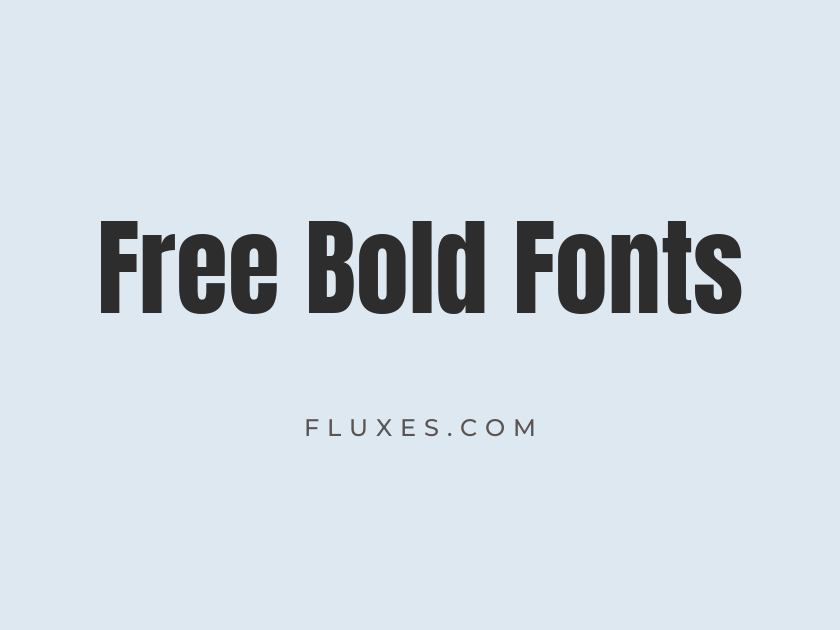
62 Best Free Bold Fonts
Bold fonts do the heavy lifting in design: they grab attention on a poster, anchor a homepage hero, or make a logotype impossible to ignore. Choosing the right one is less about finding “a bold font” than finding the right flavor of boldness, whether that means a black display face built for a single headline, a heavy grotesque that still reads well in a paragraph, or a slab serif with enough weight to hold a page together. Every option here is free to download and use from Google Fonts, so you can test them live before committing to one for a logo, poster, or bold-forward brand identity.
1. Anton
Anton is about as loud as a Google Font gets without resorting to novelty. It was built for tabloid-style headlines and stadium signage, and it still does that job better than almost anything else in the library. Keep it to short bursts of text; at paragraph length its density turns into a wall.
2. Bebas Neue
Only one weight exists, but that weight is doing the work of ten. Bebas Neue’s tall, all-caps condensed letterforms have become a default for fitness brands, event posters, and app UI badges precisely because they feel bold without shouting in the same way a heavy black face does.
3. Archivo Black
Archivo Black is a workhorse grotesque pushed to its heaviest setting, sturdy rather than stylish. It pairs cleanly with a lighter Archivo weight for body copy, which makes it a favorite for editorial sites that want one type family to cover a whole page.
4. Alfa Slab One
Thick, almost architectural serifs give Alfa Slab One a circus-poster and old-timey-sign energy. It works best as a display face for badges, labels, or short titles rather than anything meant to be read quickly.
5. Titan One
Rounded, inflated, and cheerful, Titan One belongs in game logos, kids’ branding, and anything that wants boldness without a hint of seriousness.
6. Luckiest Guy
Luckiest Guy borrows its swagger from hand-painted comic lettering and vintage cartoon logos. It is unapologetically informal, so save it for playful headlines rather than anything corporate.
7. Righteous
There’s a nostalgic, seventies-record-sleeve quality to Righteous, with rounded terminals and consistent stroke weight that read as bold without feeling aggressive. It suits music branding, streaming graphics, and anything chasing a retro-futuristic mood.
8. Fugaz One
Fugaz One leans into sharp, angular cuts that suggest speed and motion, which is why it turns up so often in sports logos and gaming graphics. Its heaviness comes from confident geometry rather than sheer stroke width.
9. Bungee
Bungee was designed with street signage and urban wayfinding in mind, and it carries that chunky, high-contrast personality into any headline. It is loud by design, so a single word or short phrase usually works better than a long line.
10. Bungee Inline
Take the same street-sign confidence as Bungee and add a hollow inline channel, and you get a display face with built-in texture and depth. It photographs beautifully in flat colors on posters and merch where a plain black weight would feel too flat.
11. Bungee Shade
The shadow effect baked into Bungee Shade gives it a dimensional, screen-printed feel straight out of a vintage arcade marquee. It is a specialty face, best reserved for a logotype or hero word rather than running text.
12. Black Ops One
Stenciled gaps and a rigid military bearing make Black Ops One an obvious pick for gaming, tactical, and action-adventure branding. Its personality is so specific that it rarely suits anything outside that lane.
13. Bowlby One
Bowlby One puffs its letterforms out to near-bursting, which gives it a friendly, balloon-like heaviness rather than an aggressive one. It reads well even in all caps at small sizes, unlike many super-bold display faces that turn muddy when shrunk down.
14. Squada One
Squada One keeps its rounded, slightly condensed letterforms simple enough to work as a logotype on its own, no pairing required. It sits comfortably between playful and professional, which makes it more versatile than most novelty display faces.
15. Modak
Rooted in Devanagari-inspired proportions, Modak brings an unusually plump, handcrafted heaviness to Latin type. It stands out in a crowd of grotesque black weights precisely because its warmth feels different from the usual industrial boldness.
16. Passion One
ROUNDED BOLD TYPE FOR FRIENDLY HEADLINES
At its heaviest weight, Passion One turns soft and rounded rather than sharp, giving it a friendly, approachable kind of boldness. It suits community brands, blogs, and casual product marketing more than anything trying to look serious.
17. Fjalla One
NARROW BOLD CAPS FOR CLEAN HEADLINES
Fjalla One is deceptively simple: narrow proportions, confident weight, and no decorative flourishes. It reads as bold without shouting, which makes it a reliable choice for section headers on content-heavy websites.
18. Oswald
CONDENSED BOLD HEADLINES, NEWSPAPER STYLE
Descended from classic condensed grotesques used in early twentieth-century advertising, Oswald’s bold weight keeps that newspaper-headline authority while staying legible on screens. It has become something close to a default for blog titles and WordPress themes for good reason.
19. Yanone Kaffeesatz
TALL, NARROW BOLD FOR EFFICIENT HEADLINES
Yanone Kaffeesatz
Its tall x-height and narrow width let Yanone Kaffeesatz pack a bold statement into a tight horizontal space, which is handy for sidebars, tags, and navigation labels.
20. Khand
SQUARE, STURDY BOLD FOR STRONG BRANDS
Khand
Khand’s squared-off curves and dense proportions give it a sturdy, almost architectural presence at bold weight. It was designed alongside a matching Devanagari companion, which makes it a solid pick for multilingual branding projects.
21. Teko
TALL CONDENSED BOLD FOR SPORTS SCOREBOARDS
Teko’s extreme vertical proportions make it feel built for scoreboards and stat displays, though it works just as well for any headline that needs height without eating horizontal space.
22. Rajdhani
TECH-FORWARD BOLD FOR DASHBOARDS AND UI
There’s a technical, slightly futuristic edge to Rajdhani that suits dashboards, software branding, and gaming UI. Bold weight sharpens that effect further, giving numerals and labels a confident, engineered look.
23. Barlow Condensed
INDUSTRIAL BOLD TYPE FOR SIGNAGE AND UI
Barlow Condensed borrows its stripped-down, low-contrast structure from California highway signage, and at its heaviest weight it becomes a genuinely useful display face rather than just a body-copy companion.
24. Cabin Condensed
FRIENDLY CONDENSED BOLD FOR TIGHT SPACES
Cabin Condensed
Slightly warmer than most condensed grotesques, Cabin Condensed’s bold cut still fits a lot of confidence into narrow columns, buttons, and mobile navigation bars.
25. Poppins
GEOMETRIC BOLD LETTERING FOR MODERN BRANDS
Built on true geometric circles, Poppins keeps its bold weight clean and even rather than heavy-handed. It has become nearly ubiquitous in startup branding and app interfaces, so consider it if you want a bold sans that feels current without being unfamiliar.
26. Montserrat
URBAN GEOMETRIC BOLD FOR STRONG STATEMENTS
Montserrat’s black weight is dense and confident, drawing on the geometric sans lettering found on old buildings in Buenos Aires. It pairs naturally with its own lighter weights for a cohesive type system across a whole site.
27. Raleway
ELEGANT BOLD TYPE FOR REFINED BRANDS
Raleway is usually known for its thin, elegant default weight, which makes its black cut a pleasant surprise: still refined in its proportions, just filled out with real heft for headlines.
28. Work Sans
OPTIMIZED BOLD TYPE FOR SCREENS AND UI
Designed specifically with screen legibility in mind, Work Sans holds up at its heaviest weight without the letterforms clogging together, which is a real risk with many black-weight sans faces at small sizes.
29. Inter
INTERFACE-GRADE BOLD TYPE FOR PRODUCT UI
Inter was engineered for user interfaces, and its bold and black weights carry that same obsessive attention to spacing and legibility. It has become a default choice for product teams that need a bold sans that never gets in the way of usability.
30. Rubik
ROUNDED BOLD LETTERS WITH FRIENDLY CORNERS
Rubik’s slightly rounded corners soften its black weight just enough to keep it approachable rather than harsh, a useful quality for consumer brands that want boldness without aggression.
31. Nunito
SOFT, ROUNDED BOLD TYPE FOR WARM BRANDS
Nunito’s rounded terminals give its black weight a gentle, huggable quality rare among heavy sans faces. Expect it in wellness, education, and family-facing brands more than in anything trying to look tough.
32. Exo 2
TECH-DRIVEN BOLD TYPE FOR SCI-FI THEMES
Exo 2 carries a slightly futuristic edge into its heaviest weight, with subtle geometric quirks in letters like the lowercase a. It suits gaming, technology, and sci-fi-adjacent branding particularly well.
33. Saira
VERSATILE BOLD TYPE ACROSS FIVE WIDTHS
Saira
Saira’s real strength is its width range, from ultra-condensed to expanded, all sharing the same bold DNA. That flexibility makes it easy to build an entire bold type system, from tight mobile headers to expansive desktop banners, from one family.
34. Kanit
LOOP-FREE BOLD TYPE WITH A MODERN EDGE
Kanit
Kanit trims its geometric letterforms down to essentials, and at black weight it reads confidently modern without tipping into novelty. Its Thai companion glyphs also make it a smart pick for bilingual branding work.
35. Prompt
LOOPED BOLD LETTERING FOR CONTEMPORARY BRANDS
Prompt
Similar in spirit to Kanit but slightly warmer in its curves, Prompt’s black weight suits app interfaces and marketing sites that want a bold sans without a strictly corporate feel.
36. Sora
ROUNDED BOLD TYPE BUILT FOR SCREENS
Sora was drawn with rounded stroke terminations that keep its bold weight from feeling clinical, making it a favorite for SaaS landing pages and dashboards that want a bold, friendly headline face.
37. Manrope
SHARP, MODERN BOLD FOR TECH BRANDING
Manrope’s bold weight keeps unusually tight letter-spacing, giving headlines a compact, confident density that works well in narrow layouts and mobile-first designs.
38. Space Grotesk
QUIRKY BOLD TYPE WITH MONOSPACED ROOTS
Adapted from a monospaced source, Space Grotesk keeps a few quirky proportions even at bold weight, like the slightly squared bowls. It fits tech, developer, and product brands that want boldness with a bit of character rather than pure neutrality.
39. DM Sans
LOW-CONTRAST BOLD TYPE FOR CLEAN LAYOUTS
DM Sans stays low-contrast and geometric even at its heaviest weight, which keeps headlines feeling calm and organized rather than shouty. It pairs naturally with its own lighter weights for body text, so the whole page can share one family.
40. Lexend
READABILITY-FOCUSED BOLD FOR HEADLINES
Lexend
Lexend was developed with reading research behind its proportions, and that legibility focus carries into its black weight, which stays clear even in long headline wraps.
41. Karla
GRUNGY-EDGED BOLD TYPE WITH REAL WARMTH
Karla’s bold weight keeps small imperfections in its curves that give it more warmth than a strictly geometric sans, useful for brands that want boldness without feeling manufactured.
42. Chivo
GROTESQUE BOLD TYPE WITH NEWSPAPER ROOTS
Chivo’s black weight has a no-nonsense, editorial quality that suits news sites and long-form publications wanting a bold headline face with real gravity.
43. Overpass
HIGHWAY-INSPIRED BOLD TYPE FOR SIGNAGE
Based on the lettering used on U.S. highway signs, Overpass carries that same clear, no-frills authority into its black weight, making it a natural fit for wayfinding-style graphics and infrastructure branding.
44. Titillium Web
OPEN-SOURCE BOLD TYPE FOR TECH BRANDS
Titillium Web
Born from a university type design project, Titillium Web’s bold weight has a slightly technical, engineered feel that suits software and research-oriented branding.
• Styles: 11 styles (6 weights plus italics)
45. Josefin Sans
ART DECO BOLD TYPE FOR VINTAGE-MODERN LOOKS
Josefin Sans draws on 1920s geometric sans lettering, and its bold weight keeps that art deco elegance while gaining enough weight for headline use. It suits fashion, beauty, and lifestyle brands chasing a vintage-modern balance.
46. Archivo
NEUTRAL BOLD GROTESQUE FOR ANY BRAND
Where Archivo Black is a standalone display face, the full Archivo family’s black weight gives you the same heft with more control, since it shares a system with lighter weights for body text.
47. Barlow
LOW-CONTRAST BOLD TYPE FOR CLEAN INTERFACES
Barlow’s black weight keeps the same rounded, low-contrast structure as its lighter cuts, so a whole interface can lean bold in the headline and restrained in the body without feeling like two different typefaces.
48. Baloo 2
ROUNDED BOLD LETTERING FOR PLAYFUL BRANDS
Baloo 2’s rounded, slightly chunky bold weight has a handmade warmth that suits children’s products, casual apps, and brands that want friendliness over authority.
49. Fredoka
BUBBLY BOLD TYPE FOR CHEERFUL HEADLINES
Fredoka’s rounded, bubble-like forms get even more expressive at bold weight, making it a go-to for playful branding, event graphics, and anything aimed at a younger audience.
50. Dosis
ROUNDED CONDENSED BOLD FOR TIDY HEADLINES
Dosis
Dosis stays narrow and rounded even at its heaviest weight, which makes it useful for compact headline space where a full black grotesque would feel too wide.
51. Ubuntu
HUMANIST BOLD TYPE WITH OPEN-SOURCE ROOTS
Ubuntu
Commissioned for the Ubuntu operating system, this bold weight carries distinctive humanist curves that make it feel friendlier than most engineered sans faces, without losing any authority.
• Language support: Latin, Latin Extended, Cyrillic, Cyrillic Extended, Greek, Greek Extended
52. PT Sans
RELIABLE BOLD TYPE FOR WIDE LANGUAGE SUPPORT
PT Sans was built to serve a huge range of Cyrillic and Latin languages at once, and its bold weight stays legible and unfussy across all of them, a genuinely practical choice for international projects.
53. Abril Fatface
DRAMATIC BOLD SERIF FOR EDITORIAL HEADLINES
High contrast between thick and thin strokes gives Abril Fatface a dramatic, fashion-editorial boldness unlike anything in the sans-serif crowd. Use it large; at small sizes those hairline strokes disappear and the letters lose their shape.
54. Playfair Display
ELEGANT BOLD SERIF FOR LUXURY HEADLINES
At its black weight, Playfair Display keeps its refined, high-contrast serif structure while gaining real headline presence, a rare combination that suits luxury branding, magazines, and wedding-adjacent design work equally well.
55. Bevan
STURDY SLAB SERIF FOR VINTAGE BOLD TYPE
Bevan’s rounded slab serifs give it an old print, almost letterpress quality, heavy enough for posters and packaging that want boldness with a handcrafted history behind it.
56. Merriweather
BOLD SERIF BUILT FOR SCREEN READING
Merriweather was designed specifically to be pleasant on screens, and its black weight keeps that readability while adding genuine headline weight, a useful combination for editorial sites that want serif boldness without sacrificing legibility.
57. Lora
WARM BOLD SERIF FOR LONG-FORM HEADLINES
Lora’s bold weight keeps its calligraphic roots visible in the curves, giving headlines a warmer, more literary boldness than a typical grotesque black weight.
58. Roboto Slab
GEOMETRIC SLAB SERIF FOR MODERN BOLD TYPE
Built on Roboto’s geometric skeleton, Roboto Slab’s bold weight brings slab-serif weight to a thoroughly modern letterform, useful for brands that want a serif’s authority without any old-fashioned baggage.
59. Zilla Slab
CRISP BOLD SLAB SERIF FOR TECH EDITORIAL
Originally developed for Mozilla’s own publications, Zilla Slab’s bold weight is crisp and well-spaced, equally at home in a tech blog headline or a product page section title.
60. Arvo
GEOMETRIC BOLD SLAB FOR STRONG HEADERS
Arvo’s slab serifs are built on simple geometric shapes, and the bold weight amplifies that structural clarity into headers that feel sturdy without any unnecessary ornament.
61. Bitter
CONTEMPORARY BOLD SLAB FOR DIGITAL READING
Bitter was designed for comfortable reading on screens, and its black weight scales that comfort up into a genuinely bold slab serif suited to feature headlines and pull quotes.
62. Libre Baskerville
CLASSIC BOLD SERIF FOR TRUSTED BRANDS
Adapted from the venerable Baskerville for screen use, Libre Baskerville’s bold weight carries a traditional, trustworthy quality that suits law firms, publishers, and any brand leaning on serif authority rather than modern flash.
Getting the Most Out of Bold Fonts
Bold display faces work best in small doses. Save the heaviest weights for headlines, logos, and short callouts, and let a lighter weight or a separate font carry body copy.
Contrast is what makes bold type feel bold. Pairing a black display face with a light or regular weight, whether from the same family or a quieter companion, gives the heavy type somewhere to stand out.
Test any bold font at the exact sizes you plan to use. Some heavy weights turn muddy or start clashing letters together once they shrink below a certain point, especially condensed or slab styles.
With this many bold options available for free, there is rarely a reason to reach for a paid alternative. Somewhere in this list is a weight, width, and mood that fits almost any brand willing to make a strong first impression.